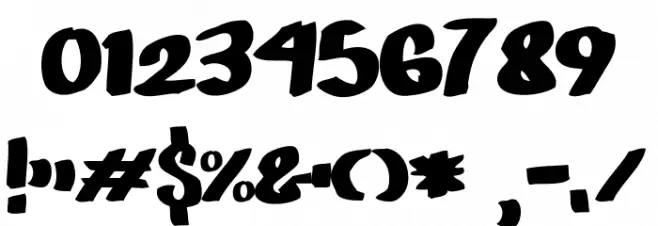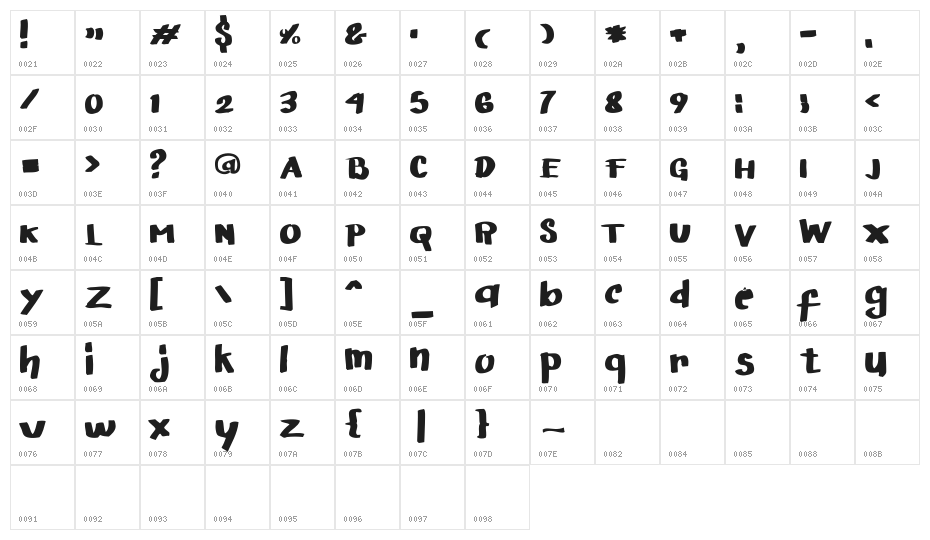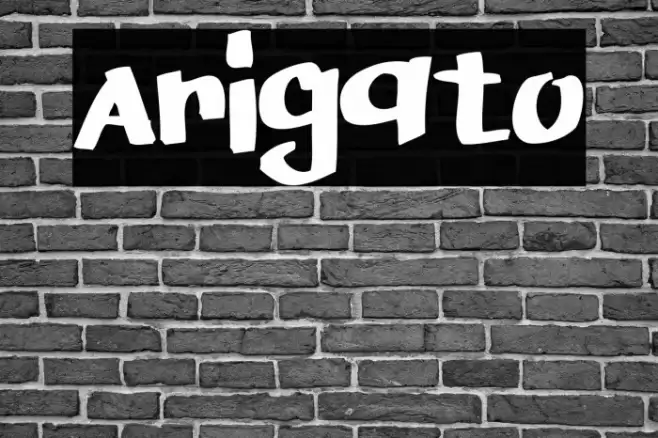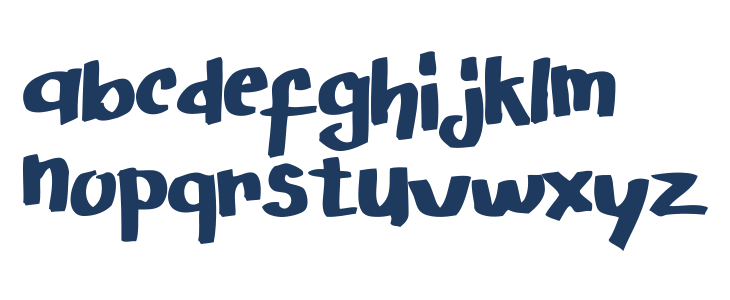
Arigato Font
Arigato Description
This font features a bold and playful style with a hand-drawn appearance. The characters are thick and slightly irregular, giving it a casual and artistic feel. The uppercase and lowercase letters maintain a consistent weight, while the numbers and special characters are designed to match the overall aesthetic. The strokes are rounded and smooth, contributing to its friendly and approachable look. This font is ideal for projects that require a fun and informal touch, such as children's books, posters, and creative branding.
| Overall Style | Playful, Artistic |
| Proposed Projects | Children's books, posters, creative branding, event invitations. |